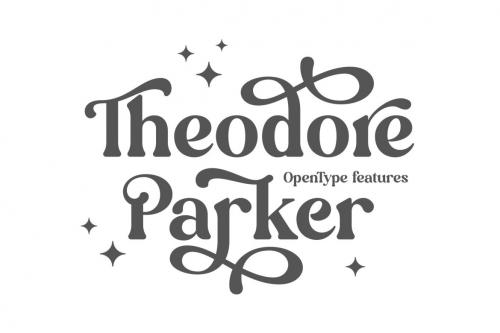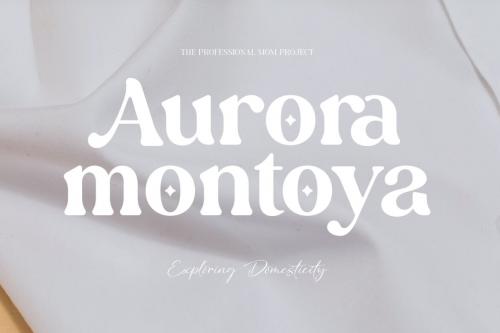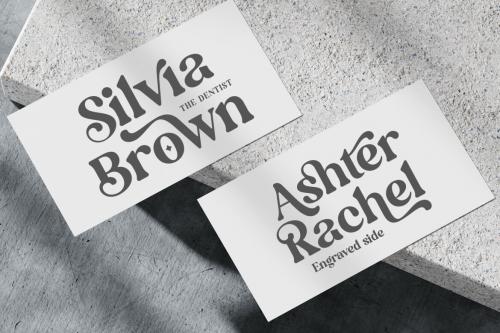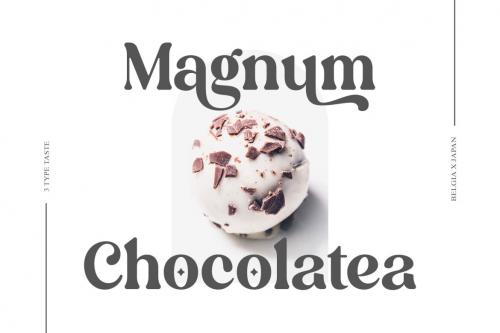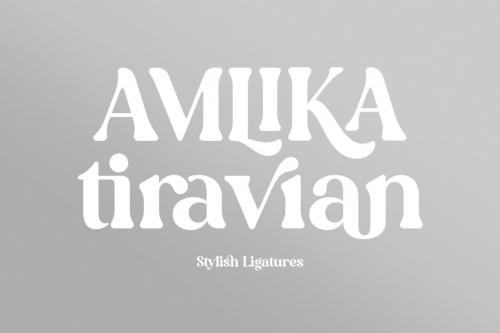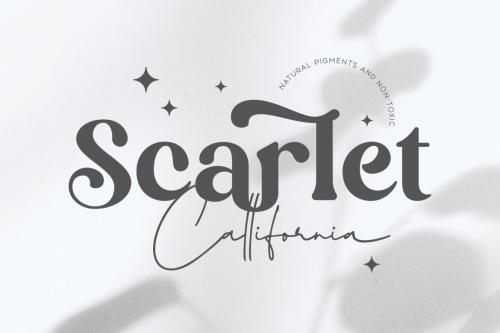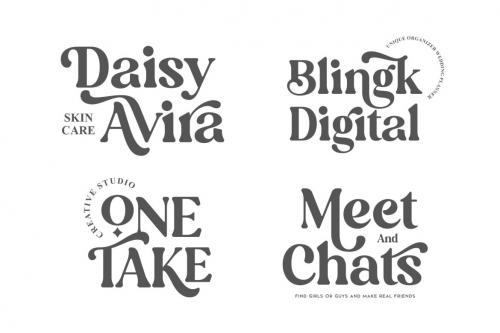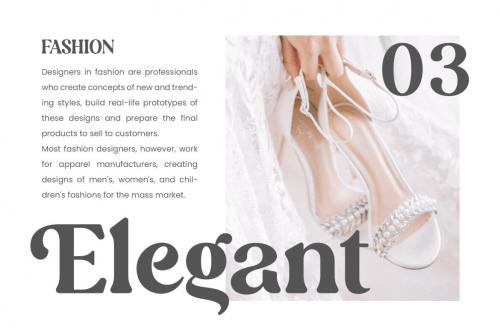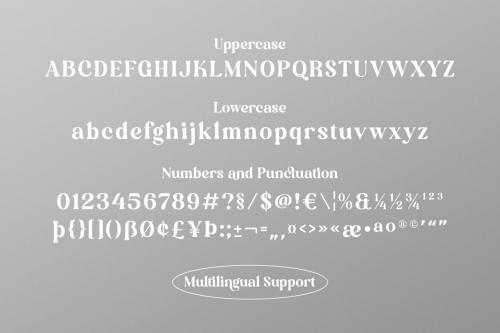
Introducing Mandira, the ultimate serif font for those seeking a unique and sophisticated touch to their design projects. With its rounded curves shaped. Inspired by the modern retro, Mandira is the perfect choice for those seeking a minimalist yet stylish look. The font boasts a wide range of special characters, giving you the freedom to mix and match to create a truly personalized touch.
Whether you're a designer, blogger, or creative, this font is perfect for logos, headings, and branding, and its bold and fancy appearance to ease you make a masterpiece. With over 400+ glyphs to choose from, you can be sure that your work will stand out.
- Uppercase
- Lowercase
- Numbers & punctuation
- Stylistic alternates
- Stylistic set 01-05
- Ligatures
- Multilingual support